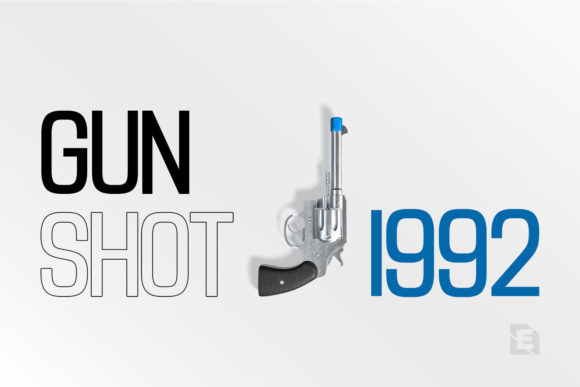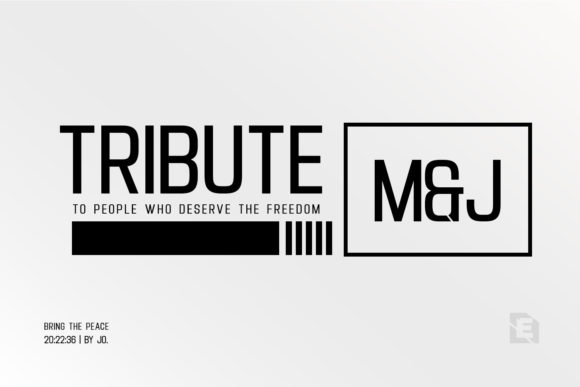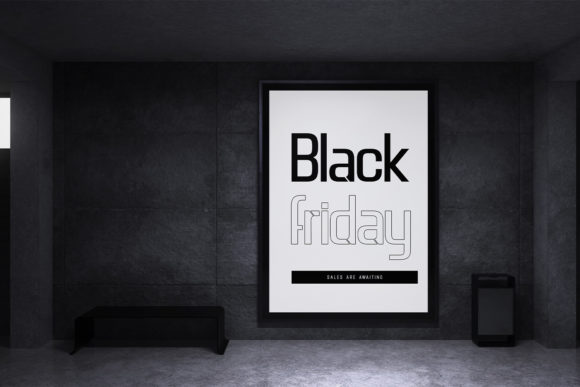
Introduction to Juvan Typeface Font
Juvan is a unique and modern display typeface perfect for headlines, big text, branding, logotypes & display usage.
This font can be the perfect choice for outstanding logos, promotional content, and marketing graphics that can bring uniqueness and freshness at its level best The typeface will be perfect for creating unique monograms, logos, and identities with these combinations.
Key Features of Juvan Typeface Font
Why Choose Juvan Typeface Font?